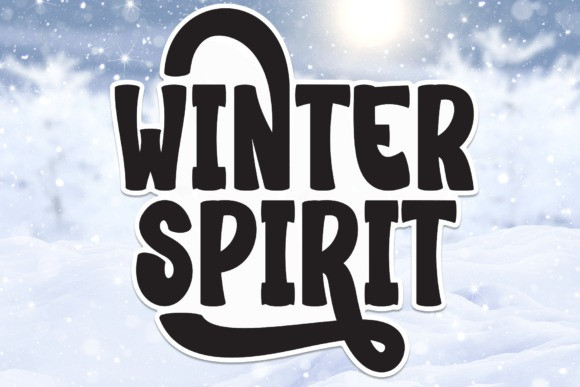
Winter Spirit Font
Winter Spirit Font is a sweet and friendly handwritten font. Its natural and unique style makes it incredibly fitting to a large pool of designs. The only limit is your imagination!